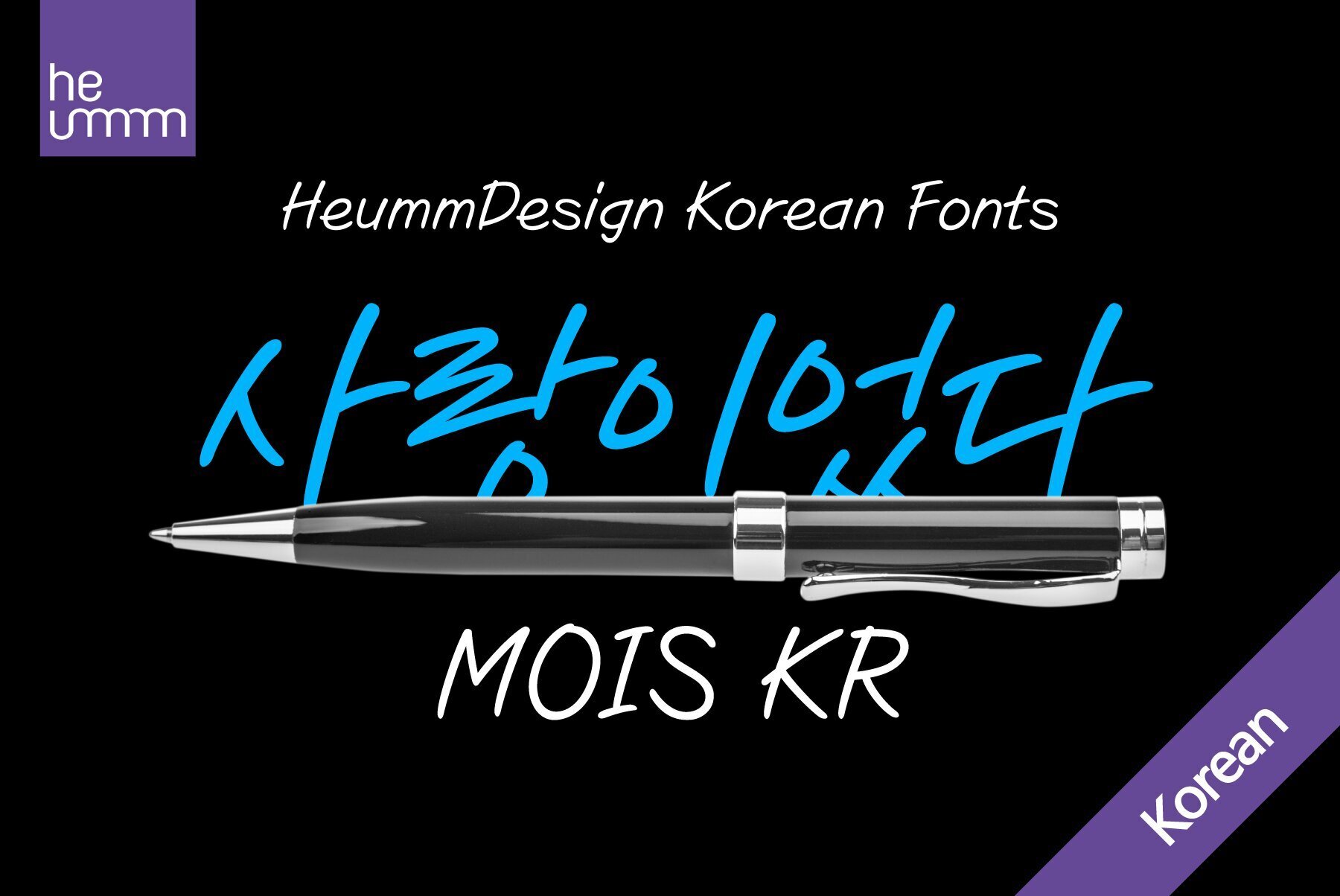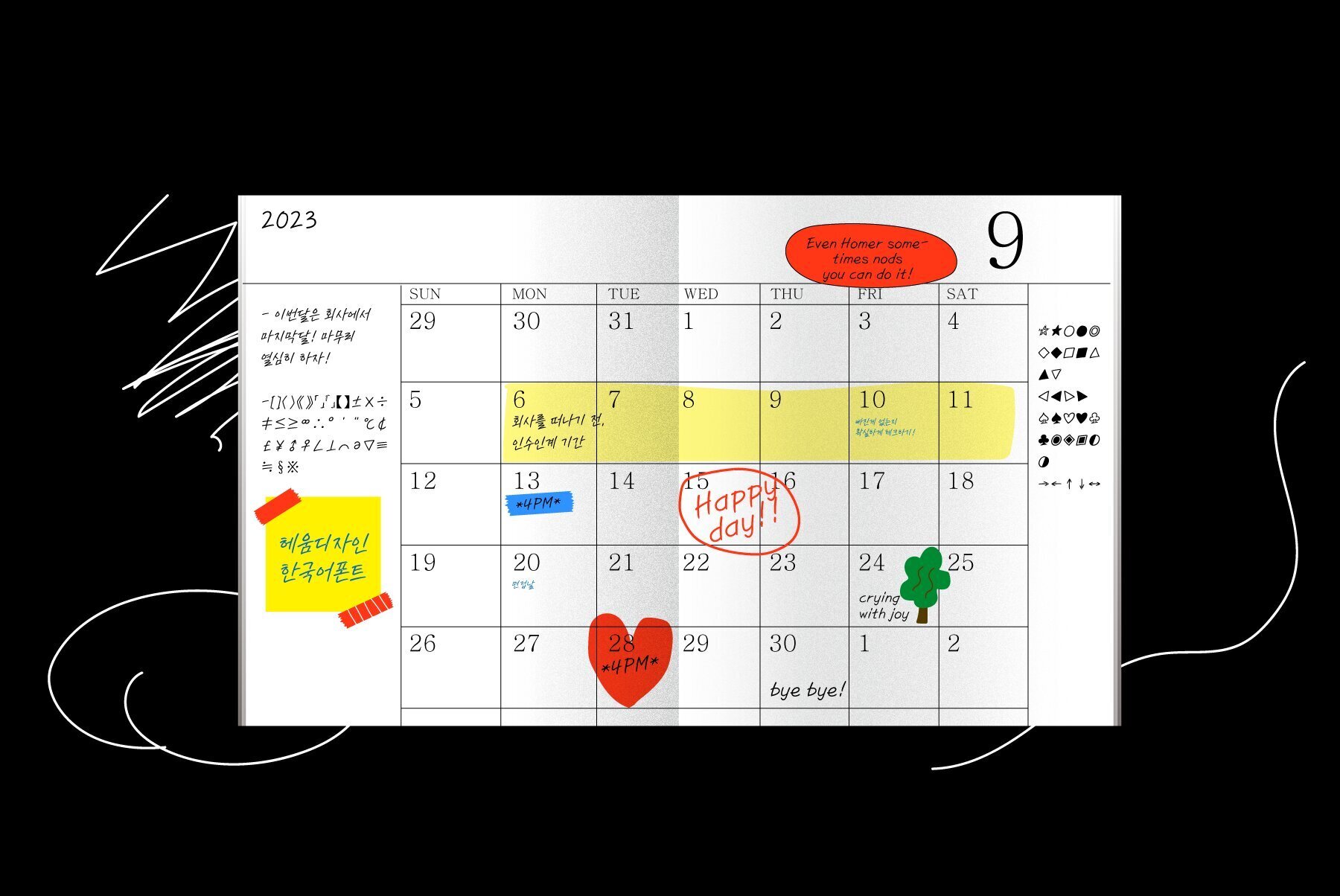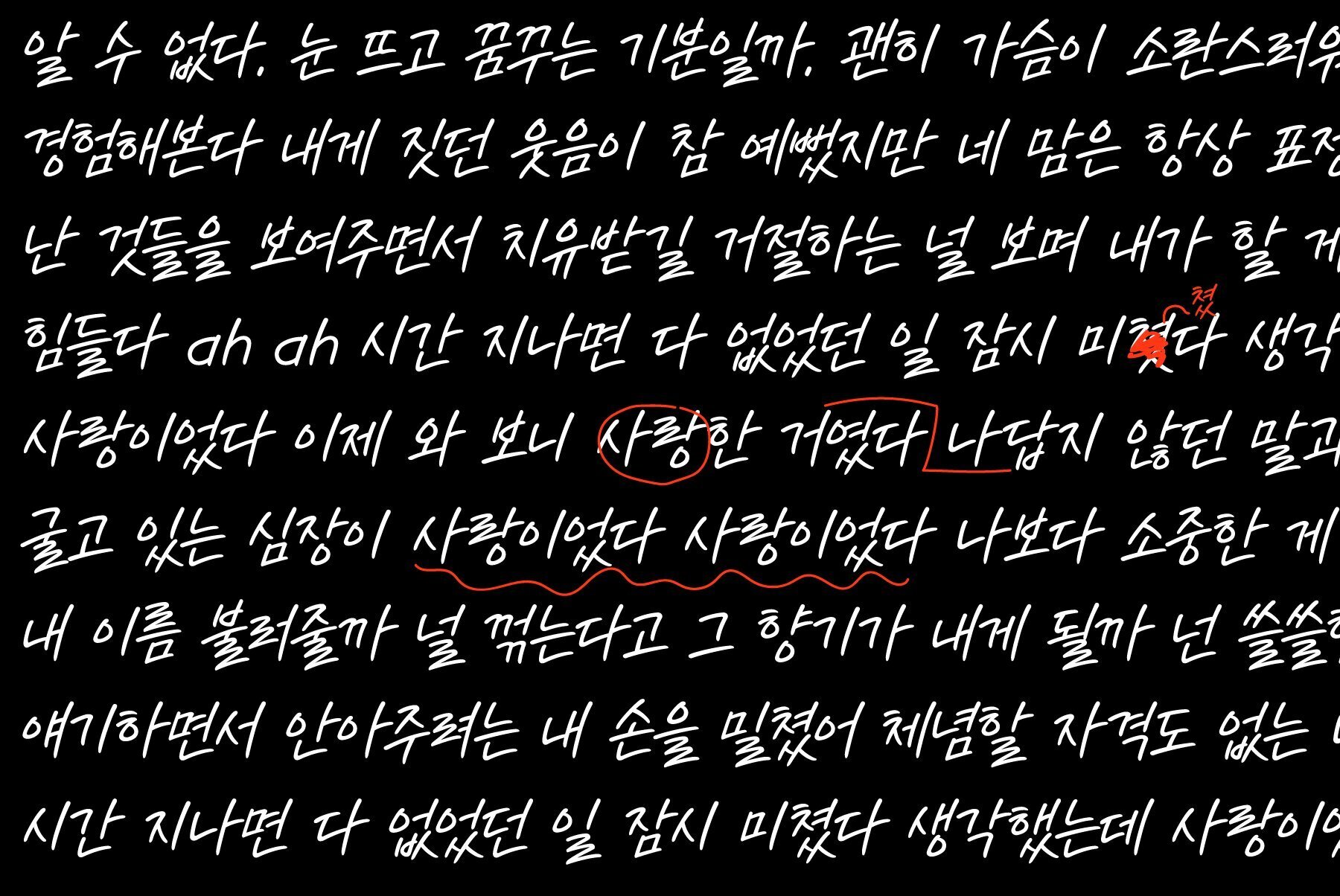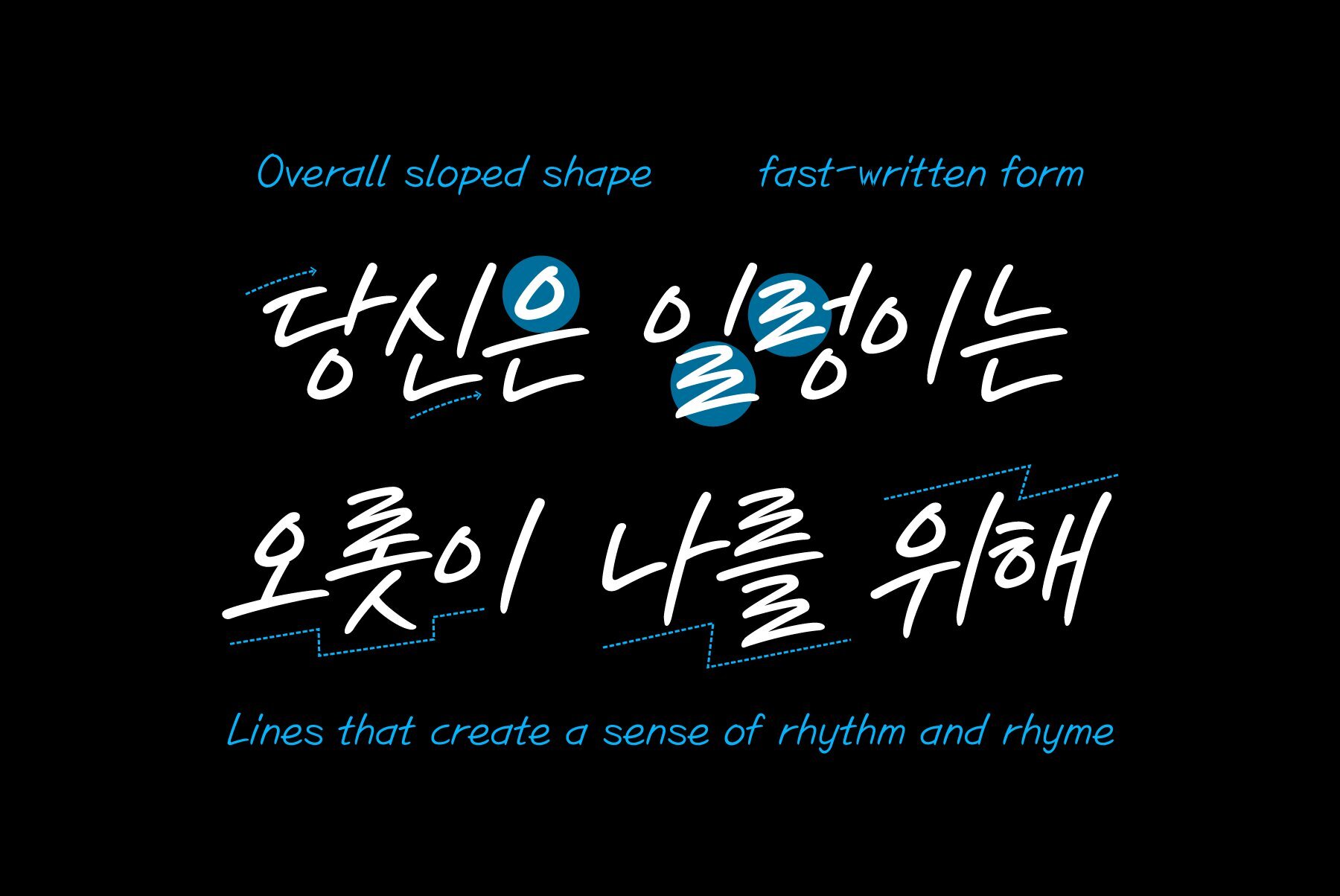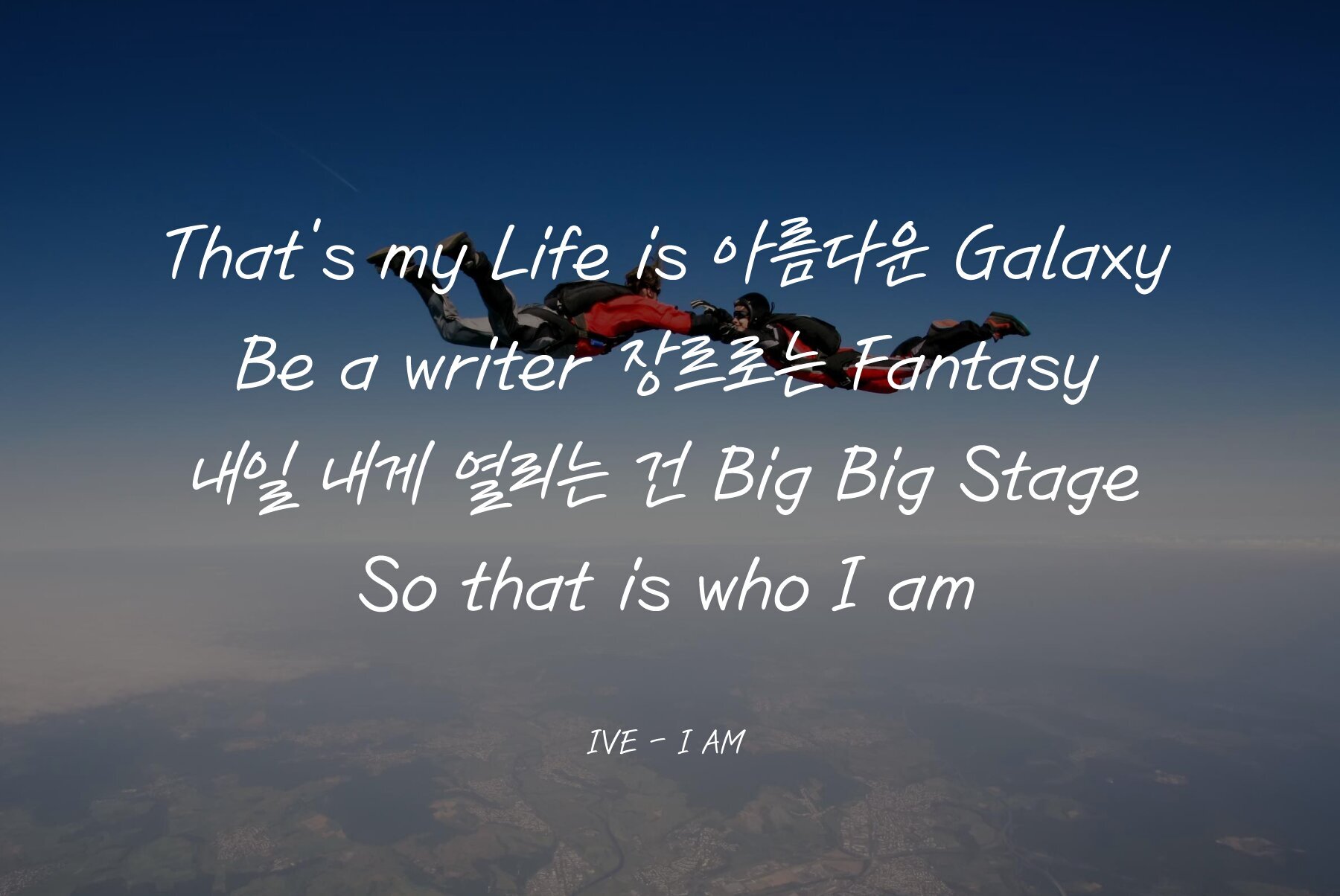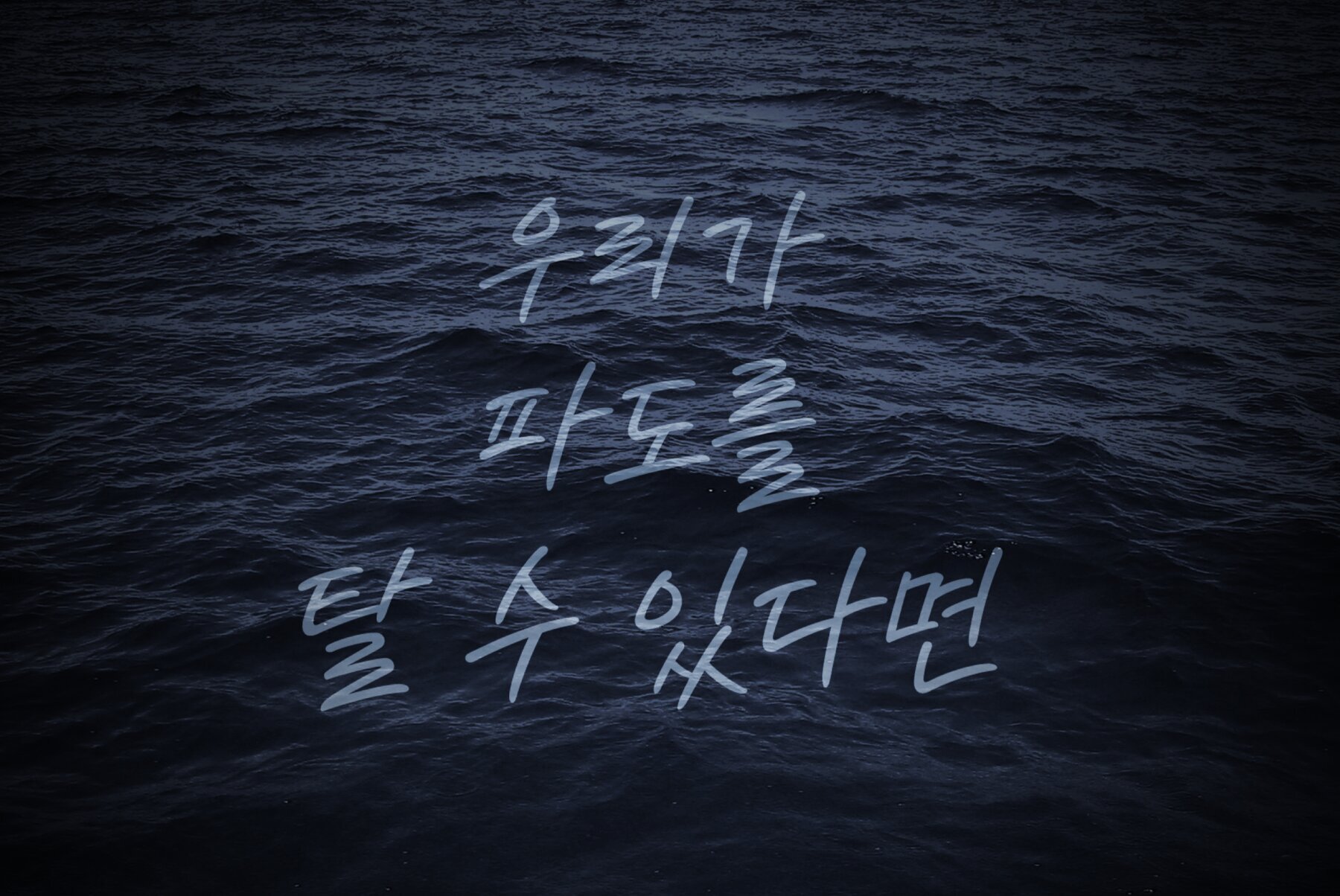
HU Mois KR Font
HU Mois KR is a calligraphy font that captures the essence of speed and a naturally slanted feel, reminiscent of fluid handwriting. It embraces the free rhythm often found in personal penmanship, making it an excellent choice for designs that seek to convey a sense of movement and authenticity. With its inclusion of Korean characters, HU Mois KR is a versatile font that can adapt to projects involving both Korean and Latin scripts.